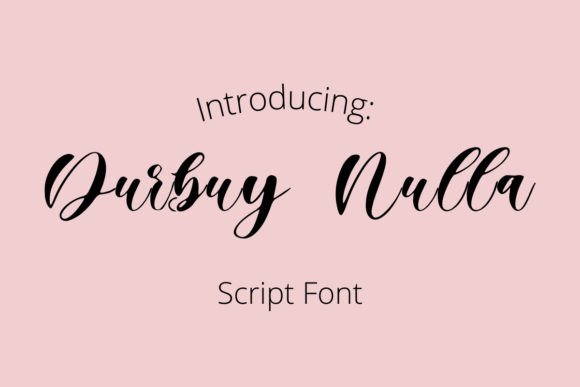
Immerse yourself in the captivating essence of Durbuy Nulla, a script font family born from the creative brilliance of Sparkylicious. This masterpiece is an eclectic blend of grace and finesse, effortlessly exuding sophistication and luxury in every letterform. A symphony of elegant curves and sweeping strokes, Durbuy Nulla is a visual masterpiece that transcends the ordinary, leaving an indelible mark on your designs.
Unleash your creativity and let the refined beauty of Durbuy Nulla elevate your designs to new heights. This versatile font family is a perfect match for formal event invitations, adding a touch of elegance that captivates and enchants. Its delicate strokes and intricate details bring a sense of exclusivity and luxury to your designs, ensuring that they stand out from the crowd.
Picture the awe-inspiring beauty of a high-end product package adorned with Durbuy Nulla. Its timeless charm and sophisticated aura enhance the perceived value of your products, creating an unforgettable experience for your customers. Let Durbuy Nulla narrate the story of your brand, evoking a sense of luxury and desire that compels customers to reach for your products.
Discover the transformative power of Durbuy Nulla in designs that demand a sense of opulence and grandeur. Its sweeping curves and delicate flourishes add an air of regality to your creations, making them the center of attention. Whether you're creating marketing materials, website designs, or social media graphics, Durbuy Nulla elevates your designs to new levels of sophistication and allure.
As you embark on your creative journey with Durbuy Nulla, you'll find endless possibilities to explore. Its remarkable versatility shines through, allowing you to effortlessly adapt it to a wide range of design projects. From elegant wedding invitations to enchanting book covers, from captivating logos to alluring branding materials, Durbuy Nulla seamlessly blends into any project, enhancing it with a touch of refined beauty.